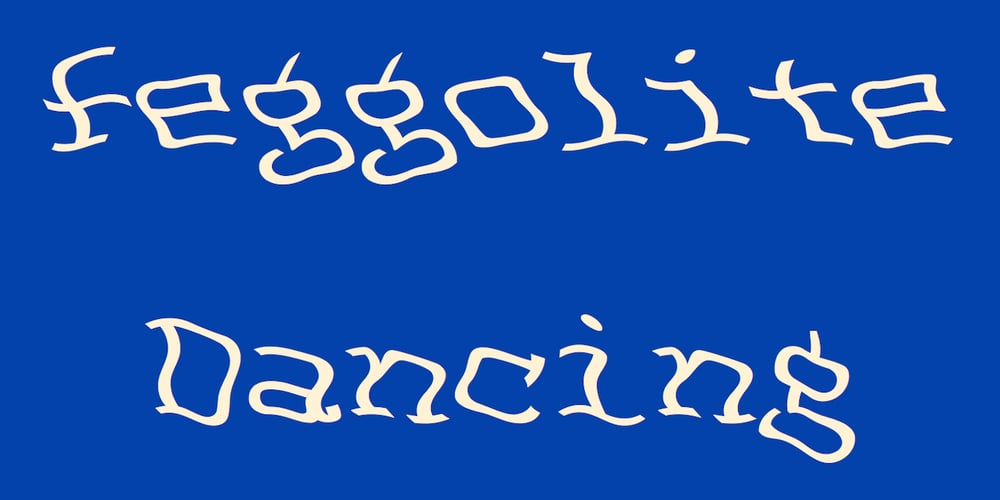
FeggoliteDancing Font Family was designed by Robert Schenk and published by Ingrimayne Type. FeggoliteDancing contains 2 styles and family package options. FeggoliteDancing has monospaced, wobbly letters. It is a variation of FeggoliteMono. For other fonts that have the same tipsy look, see NoPain and Seasick.